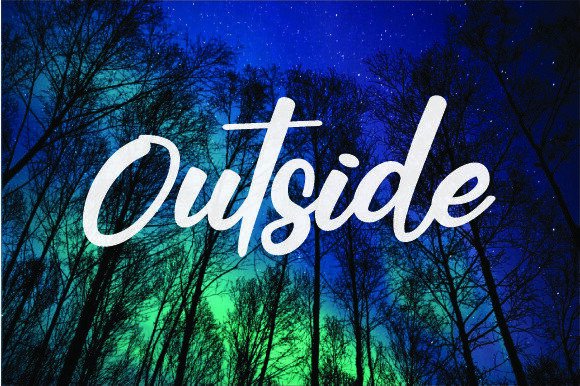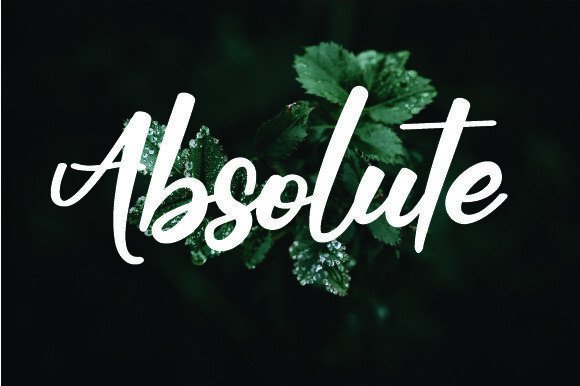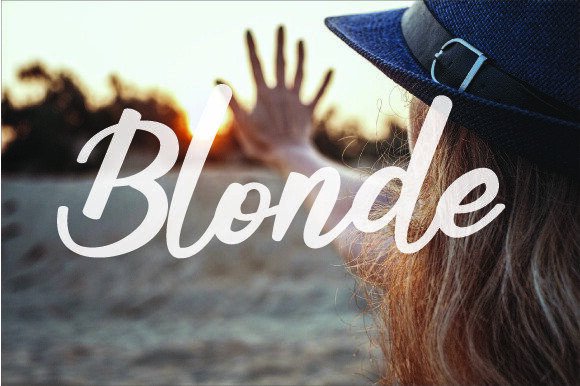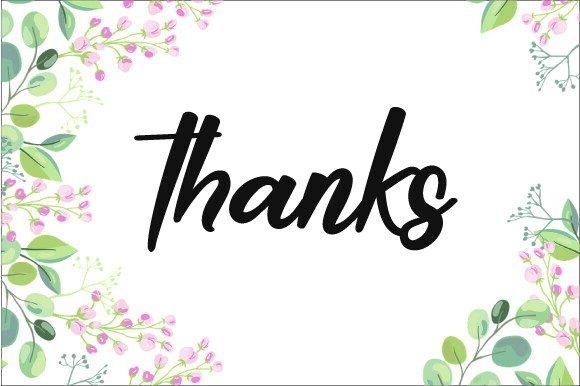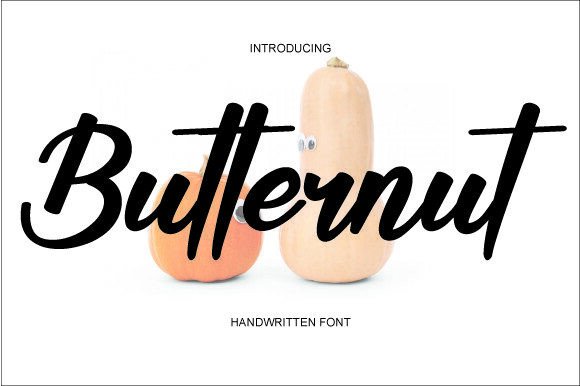
Introducing Butternut Font: The Festive and Happy Typeface for Holiday Designs
The holiday season is upon us, and with it comes the need for designers and crafters to create festive and engaging content. If you’re looking for a typeface that captures the spirit of the season, look no further than Butternut Font. This delightful font is designed to bring a touch of charm and nostalgia to your designs, making it perfect for greeting cards, gift labels, and holiday-themed projects.
The Charm of Butternut Font
Butternut Font is a decorative typeface that boasts a unique flair, setting it apart from more traditional fonts. Its playful and cheerful design is sure to evoke feelings of joy and festivity, making it the perfect addition to your holiday designs. Whether you’re creating a festive greeting card, a gift label, or a holiday-themed blog post, Butternut Font is sure to add a touch of magic to your words.
Key Features of Butternut Font
- Festive and Happy Design: Butternut Font is designed to capture the spirit of the holiday season, with a playful and cheerful design that’s sure to bring a smile to your face.
- Decorative Elements: This font features decorative elements that add a touch of charm and whimsy to your designs.
- Unique Flair: Butternut Font boasts a unique flair that sets it apart from more traditional fonts, making it perfect for designers and crafters looking to add a touch of personality to their work.
- Perfect for Holiday Designs: Whether you’re creating a festive greeting card, a gift label, or a holiday-themed blog post, Butternut Font is the perfect choice.
Uses for Butternut Font
Butternut Font is a versatile typeface that can be used in a variety of ways. Here are just a few ideas to get you started:
- Greeting Cards: Add a touch of festivity to your holiday greeting cards with Butternut Font.
- Gift Labels: Make your gifts stand out with custom labels featuring Butternut Font.
- Holiday-Themed Projects: Whether you’re creating a holiday-themed blog post, social media graphic, or flyer, Butternut Font is the perfect choice.
- Crafting Projects: Butternut Font is also perfect for crafters, adding a touch of personality to your DIY projects, such as handmade cards, gift tags, and more.
Tips for Using Butternut Font
Here are a few tips for getting the most out of Butternut Font:
- Use it Sparingly: Butternut Font is a decorative font, so it’s best to use it sparingly to add emphasis to your designs.
- Pair it with a Simple Font: Pair Butternut Font with a simple font to create a striking contrast and add visual interest to your designs.
- Experiment with Colors: Butternut Font looks great in a variety of colors, so don’t be afraid to experiment and find the perfect hue for your design.
Butternut Font is a festive and happy typeface that’s perfect for designers and crafters looking to add a touch of charm and personality to their holiday designs. With its decorative elements and unique flair, it’s sure to bring a cheerful and nostalgic atmosphere to your words. Whether you’re creating a festive greeting card, a gift label, or a holiday-themed project, Butternut Font is the perfect choice. So why not give it a try and see the magic it can add to your designs?